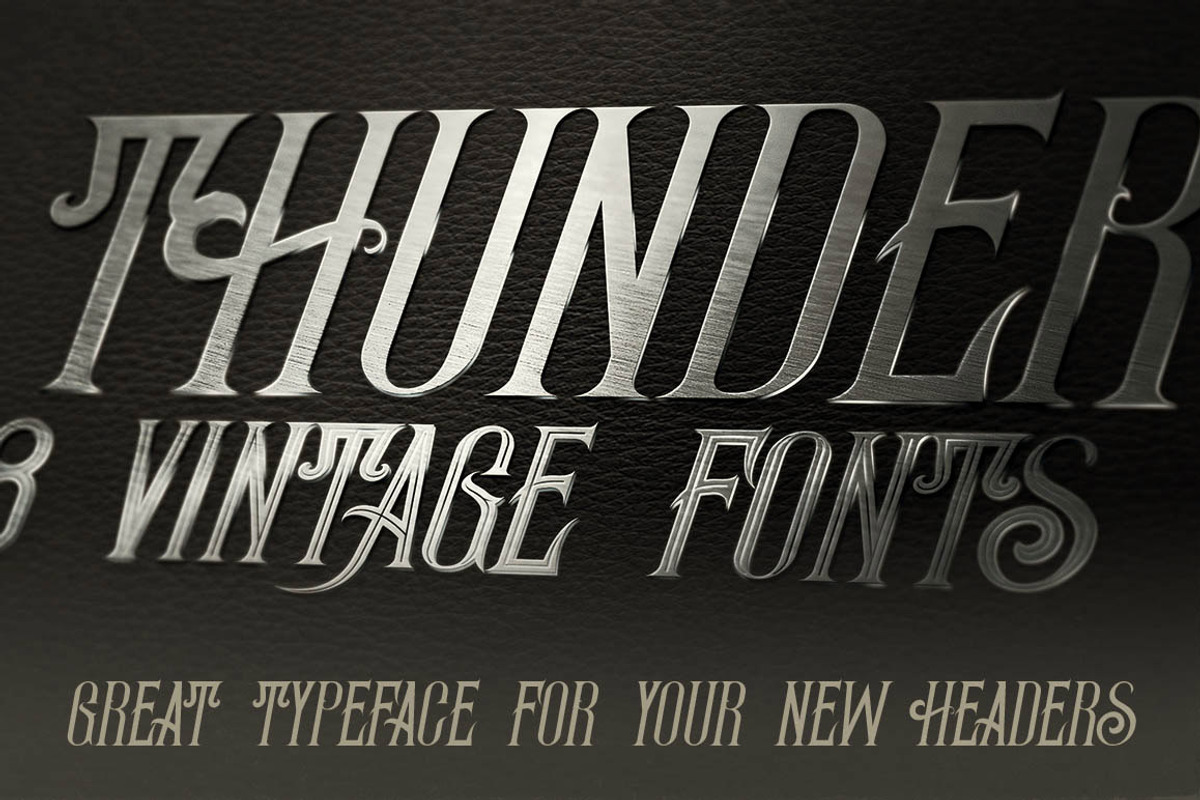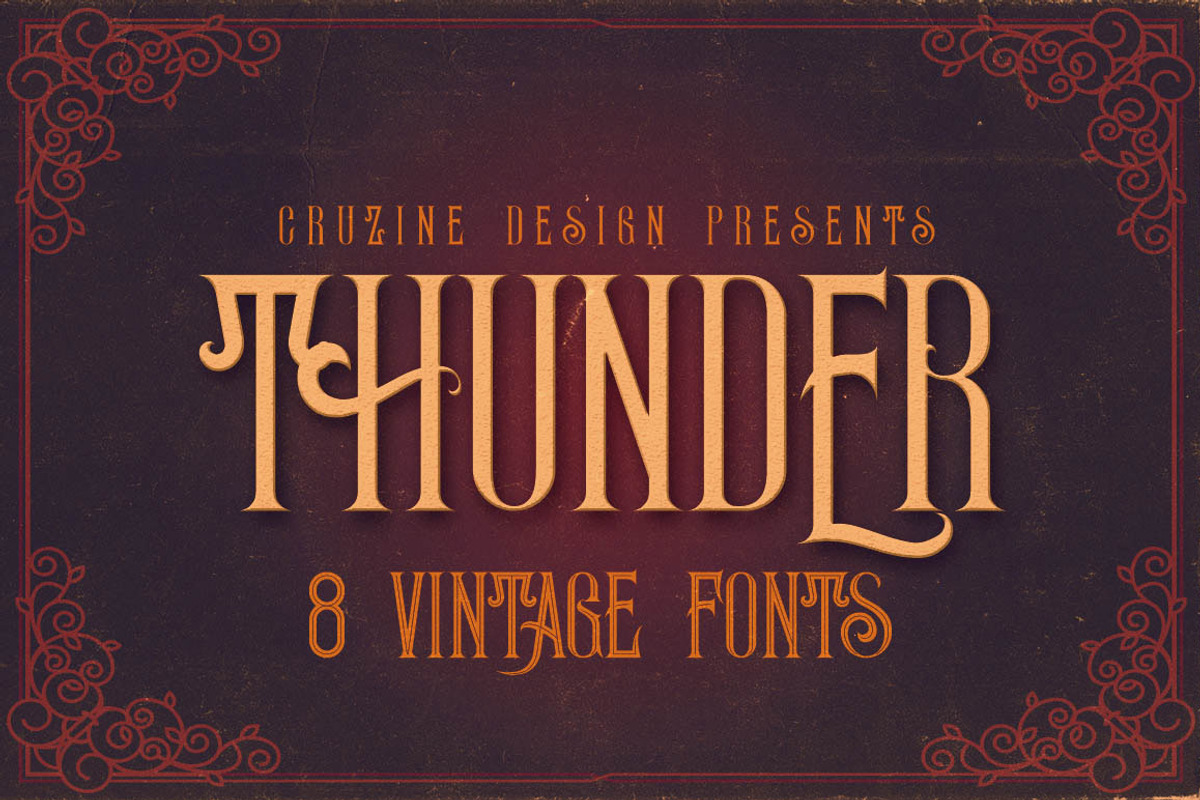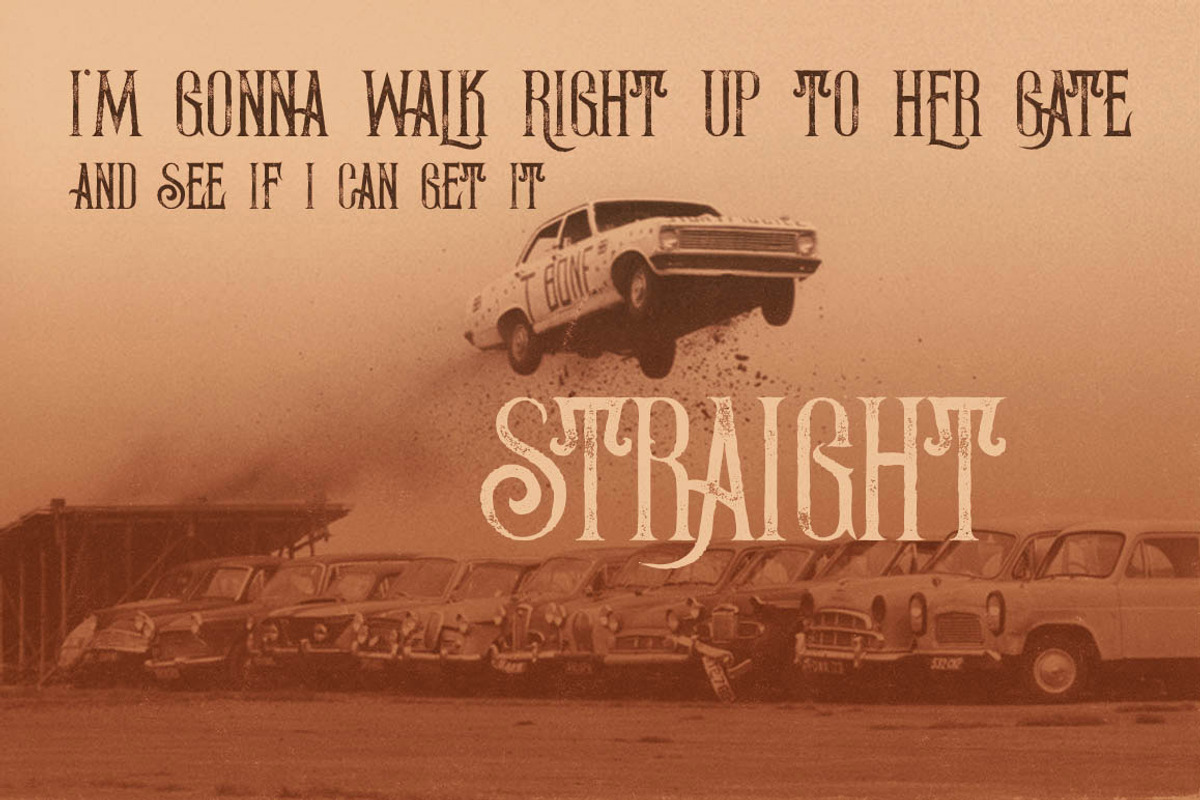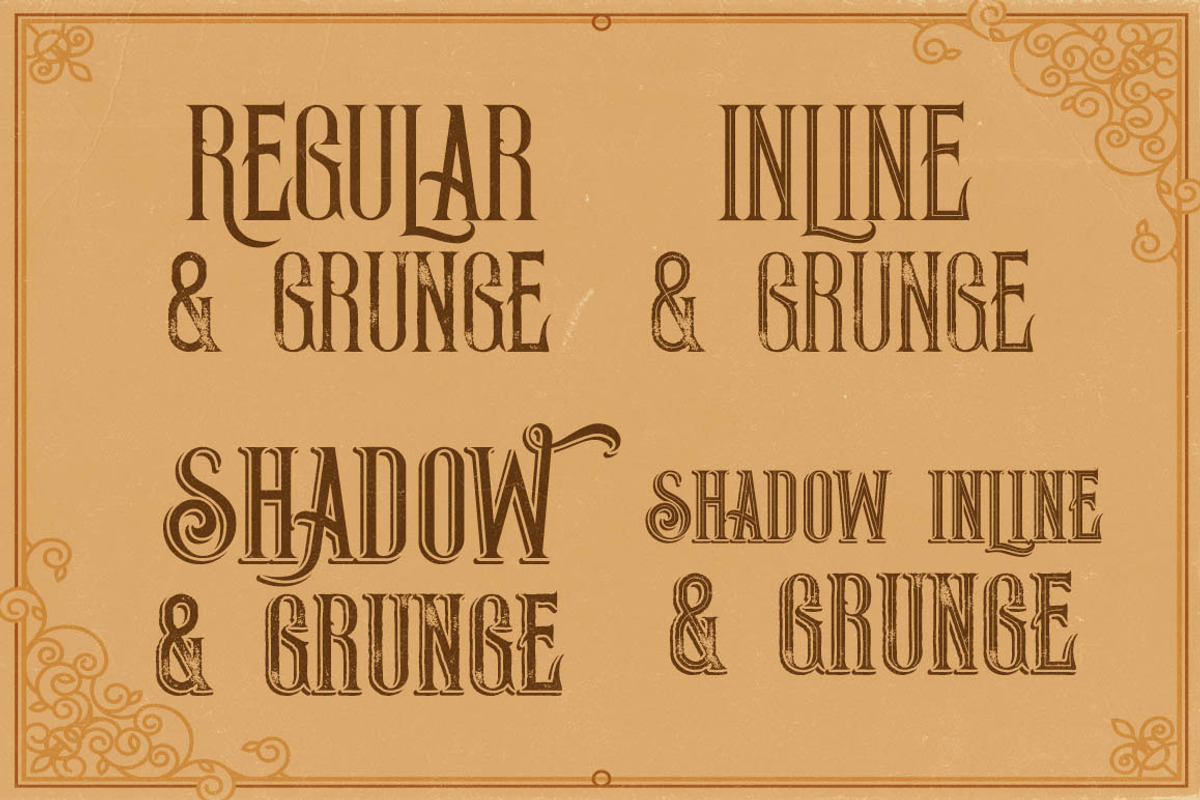
Thunder Typeface
Thunder Typeface by Cruzine is a font selected for branding, posters, packaging, typography.
Why Thunder Typeface is worth a look
Thunder Typeface by Cruzine fits naturally into Branding, posters, packaging, typography.